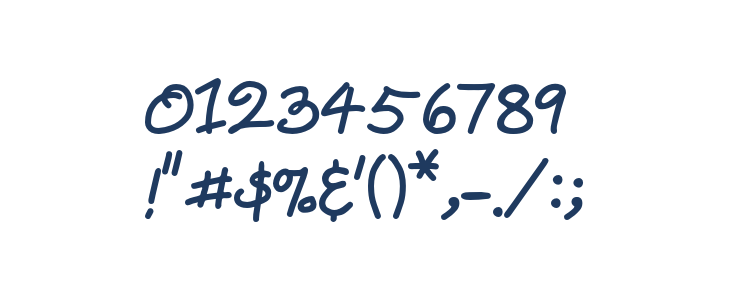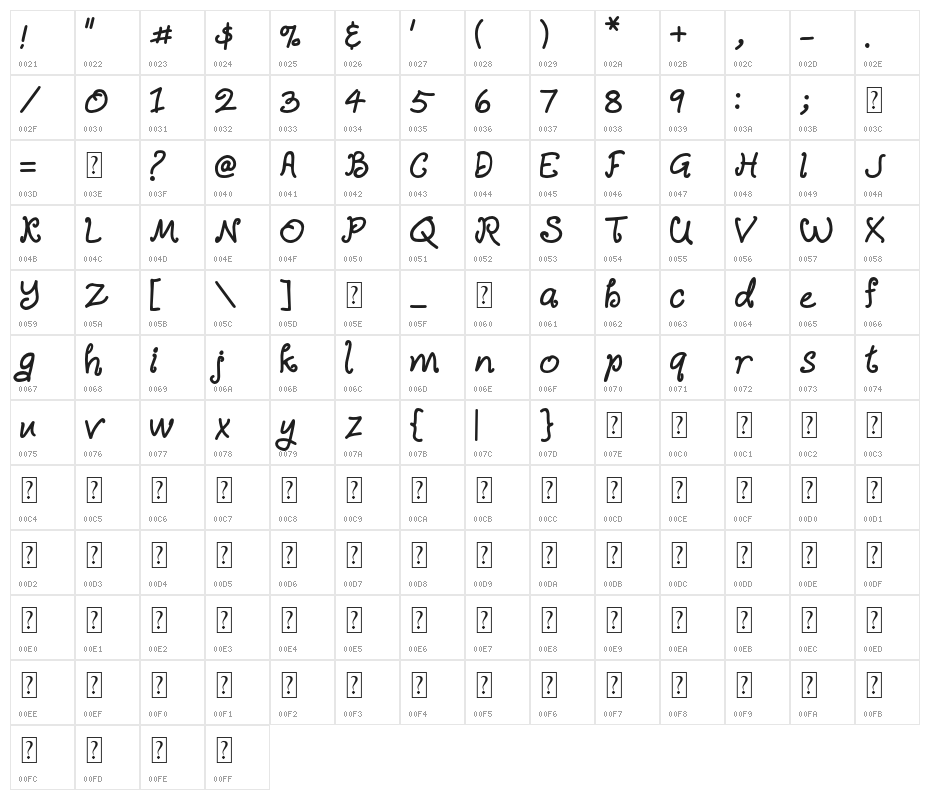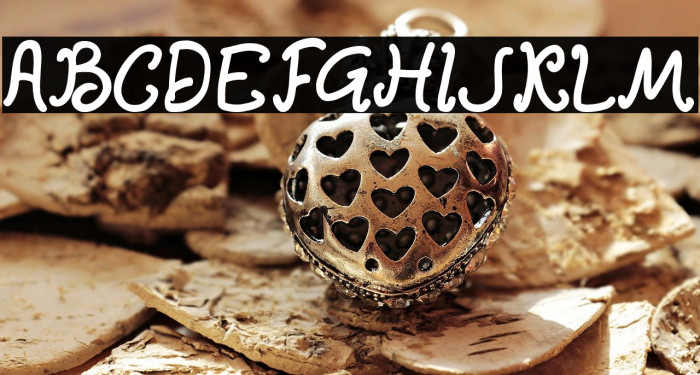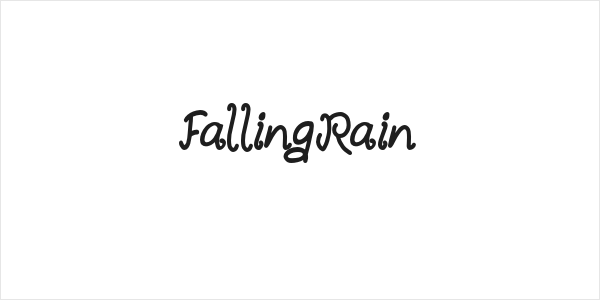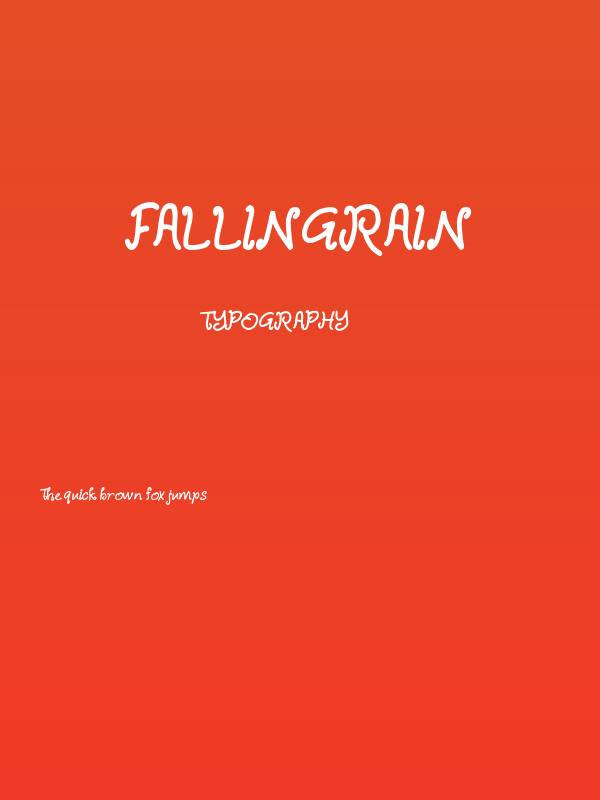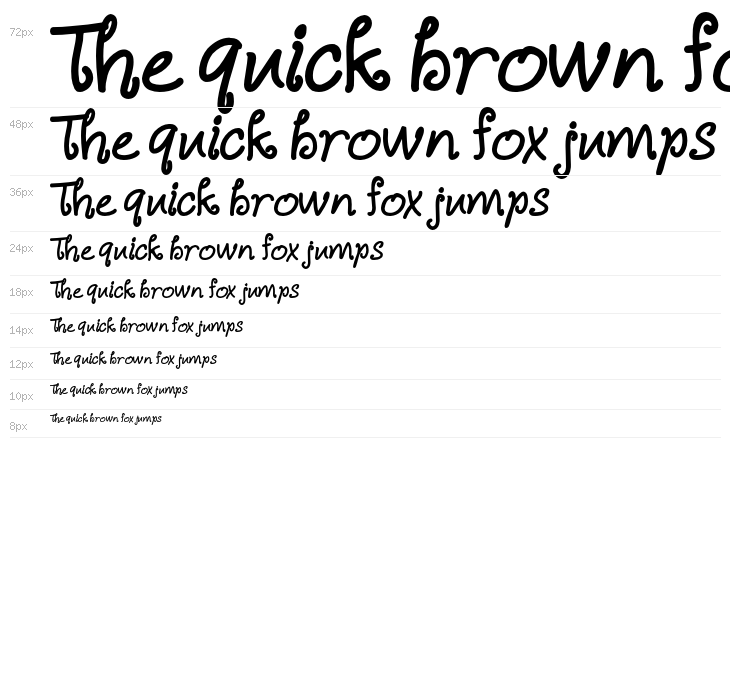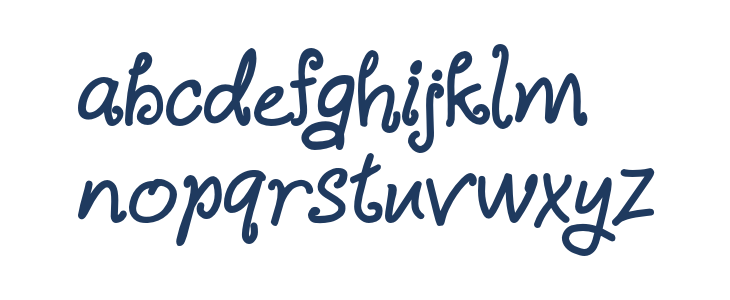
FallingRain Font
✎ Curly
FallingRain Description
This font features a playful and whimsical script style with a handwritten appearance. The letters are fluid and connected, giving a sense of movement and energy. The strokes are bold and consistent, with rounded edges that add a friendly and approachable feel. The uppercase letters maintain a uniform height, while the lowercase letters vary slightly, adding to the casual aesthetic. The numerals are clear and legible, matching the style of the alphabet. Special characters are included, maintaining the same playful design. This font is suitable for projects that require a personal touch or a creative flair.
| Proposed Projects | Ideal for greeting cards, invitations, personal branding, and creative projects. |